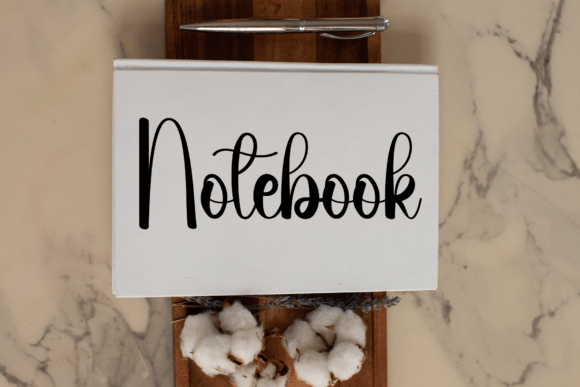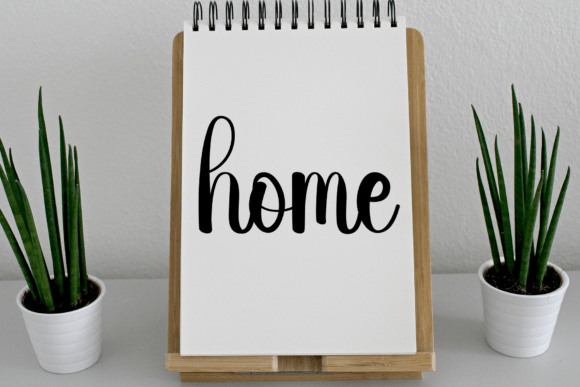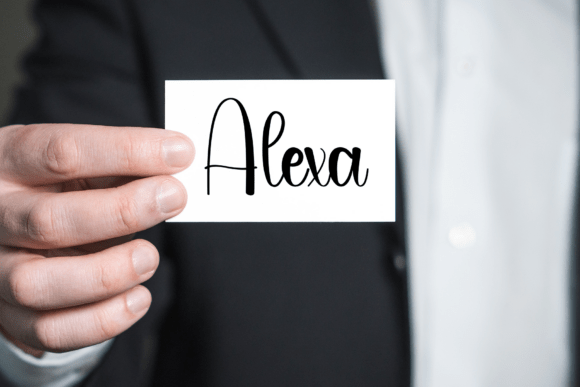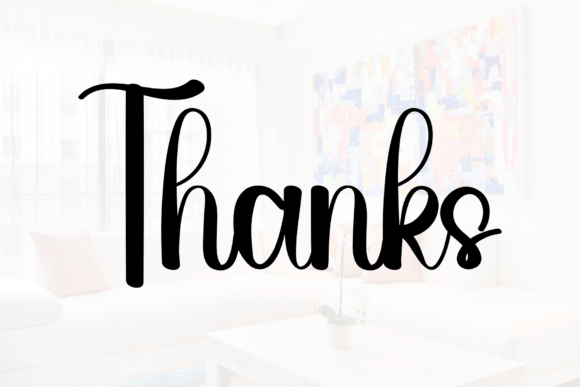
Introducing Drinking Font: The Sweet and Beautiful Handwritten Font
Are you a designer or crafter looking for a unique and charming font to add a personal touch to your design projects? Look no further than Drinking Font, a sweet and beautiful handwritten font that is sure to delight. Featuring characters that dance along the baseline, this font is perfect for adding a cozy accent to any design project you wish to create.
What Makes Drinking Font So Special?
Drinking Font is a one-of-a-kind handwritten font that boasts a range of characteristics that set it apart from other fonts. Here are just a few reasons why Drinking Font is a must-have for designers and crafters:
- Unique Character Movement: The characters in Drinking Font are designed to dance along the baseline, creating a sense of movement and energy. This unique feature adds a playful touch to any design project.
- Handwritten Charm: Drinking Font is a true handwritten font, with each character carefully crafted to mimic the natural flow and imperfections of handwriting. This gives your designs a warm, personal feel that is sure to resonate with your audience.
- Coziness and Accent: The font’s design is perfect for adding a cozy accent to any design project. Whether you’re working on a branding project, a packaging design, or a digital graphic, Drinking Font is sure to add a touch of warmth and personality.
Drinking Font is a versatile font that is perfect for a range of design applications. Here are just a few examples of how designers and crafters can use Drinking Font:
- Branding and Logo Design: Use Drinking Font to create a unique and memorable brand identity. The font’s handwritten charm and character movement make it perfect for logos, business cards, and other branding materials.
- Digital Graphics: Add a personal touch to your digital graphics with Drinking Font. The font is perfect for social media graphics, blog posts, and other digital content.
- Crafting and DIY Projects: Drinking Font is also perfect for crafters and DIY enthusiasts. Use the font to add a personal touch to your handmade projects, such as signs, labels, and other decorative items.
Why Choose Drinking Font?
With so many fonts available, why choose Drinking Font? Here are just a few reasons why Drinking Font stands out from the crowd:
- High-Quality Design: Drinking Font is designed to the highest standards, with careful attention to detail and a focus on legibility and readability.
- Unique and Versatile: Drinking Font is a one-of-a-kind font that can be used in a range of design applications. Its unique character movement and handwritten charm make it perfect for adding a personal touch to your designs.
In conclusion, Drinking Font is a sweet and beautiful handwritten font that is perfect for designers and crafters looking to add a personal touch to their design projects. With its unique character movement, handwritten charm, and coziness, Drinking Font is sure to delight. Whether you’re working on a branding project, a digital graphic, or a crafting project, Drinking Font is a must-have font that is sure to add a touch of warmth and personality to your designs.